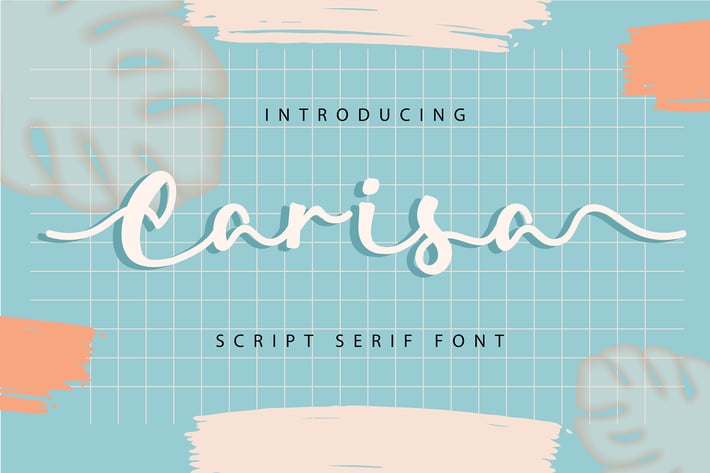
Carisa | Script Serif Font
Carisa | Script Serif Font with a calligraphy style, So beautiful on invitation like greeting cards, branding materials, business cards, quotes, posters, and more!